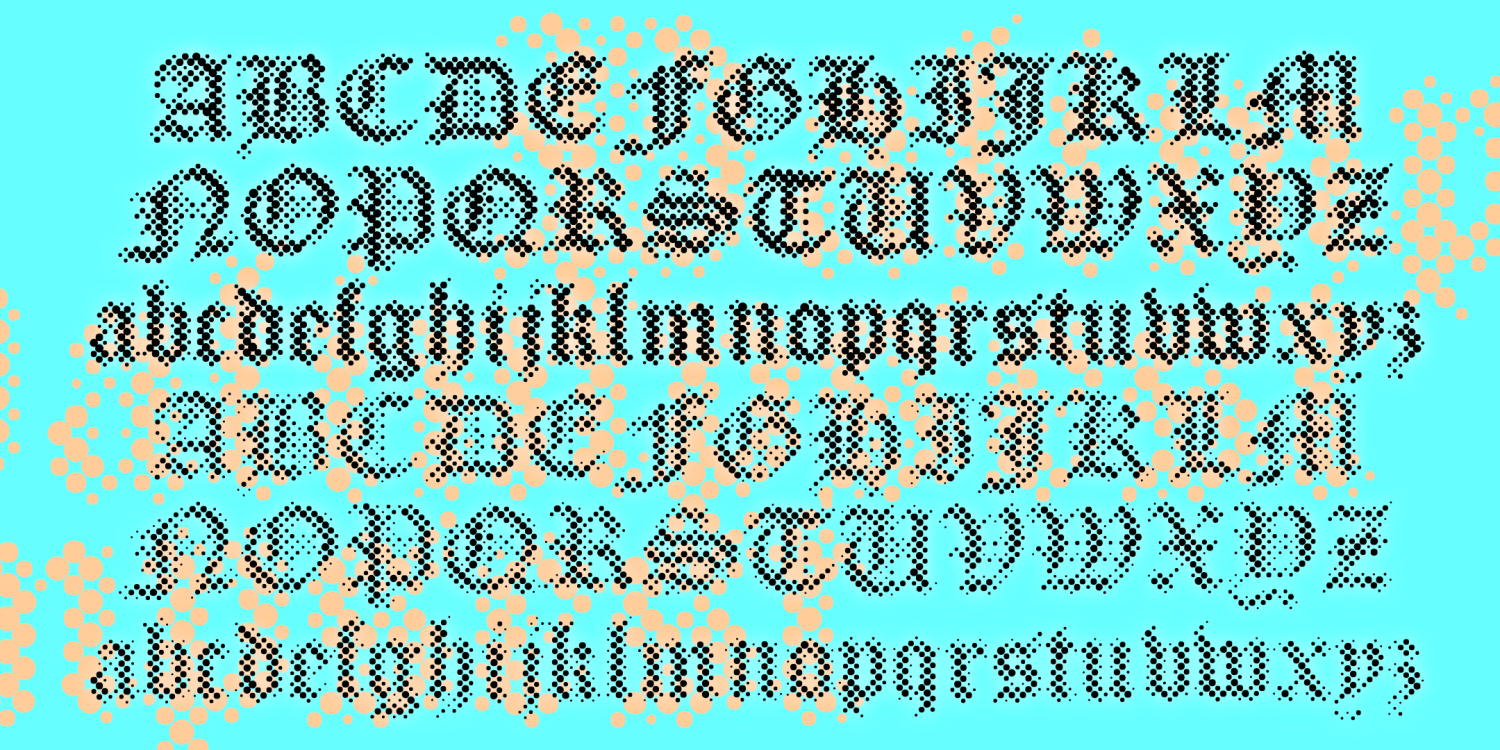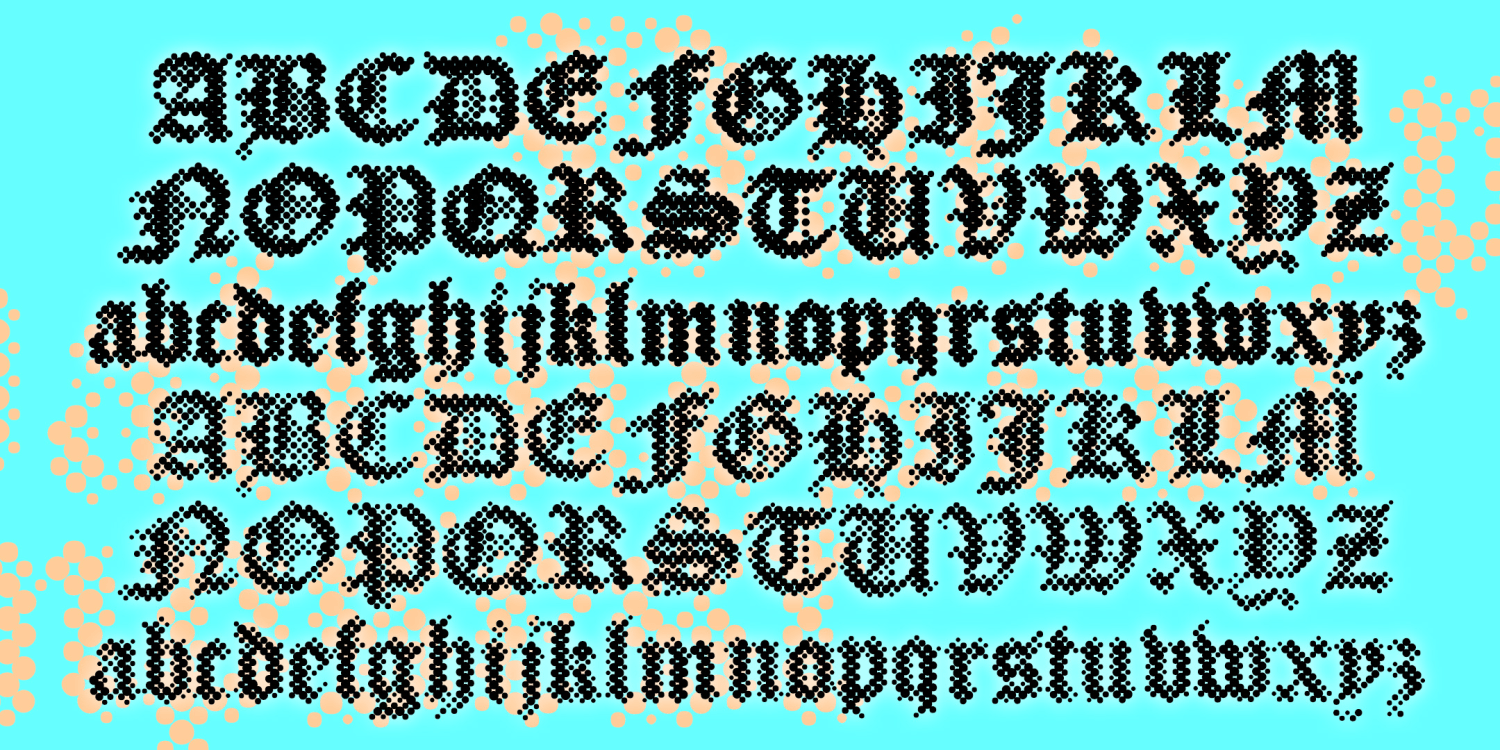
Palimpsest
PALIMPSEST combines the letterforms of an "Old English" font with the texture of a Benday or halftone dot screen. Modern + Medieval. Pop + Parchment. At first glance it appears somewhat blurred or faded but is very cleanly rendered from vector drawings for smooth edges at any size. (Bigger is better.) Palimpsest comes in four weights: Light, Regular, Dark, and Black, which can be mixed and matched for interesting effects.